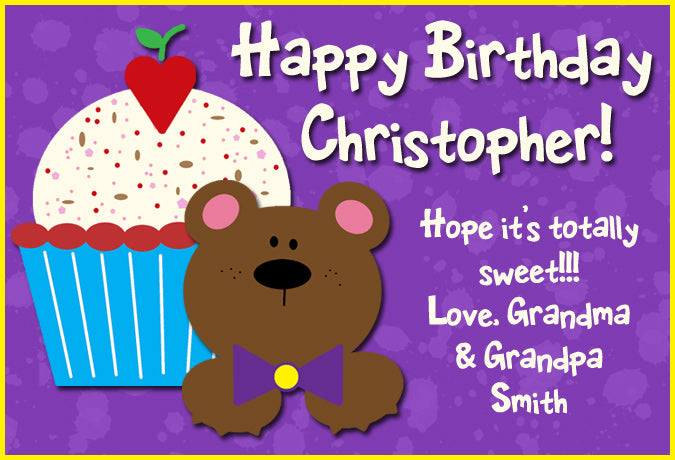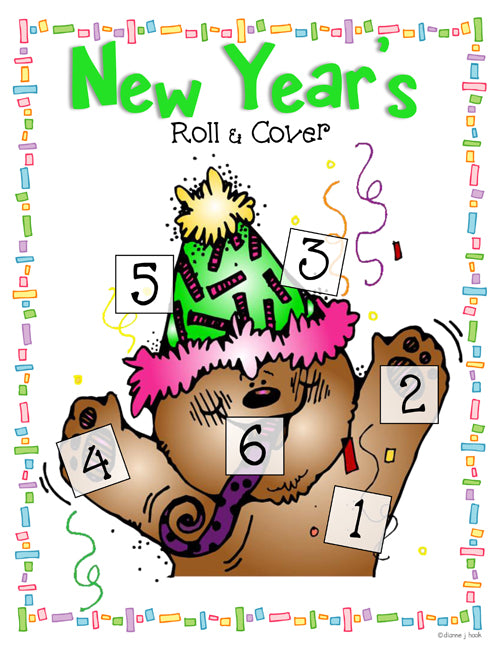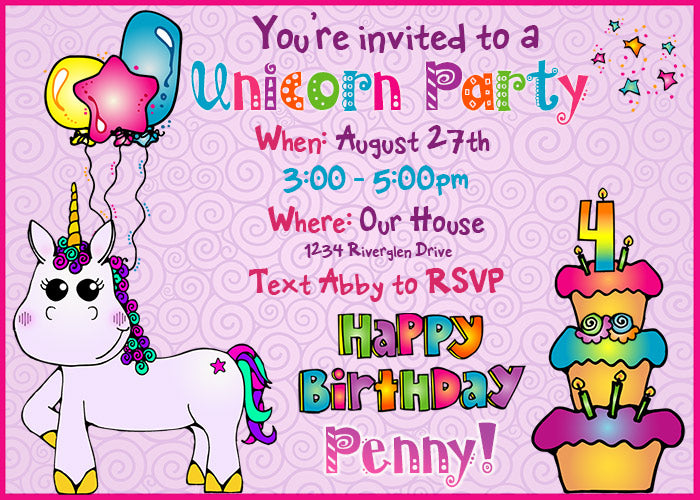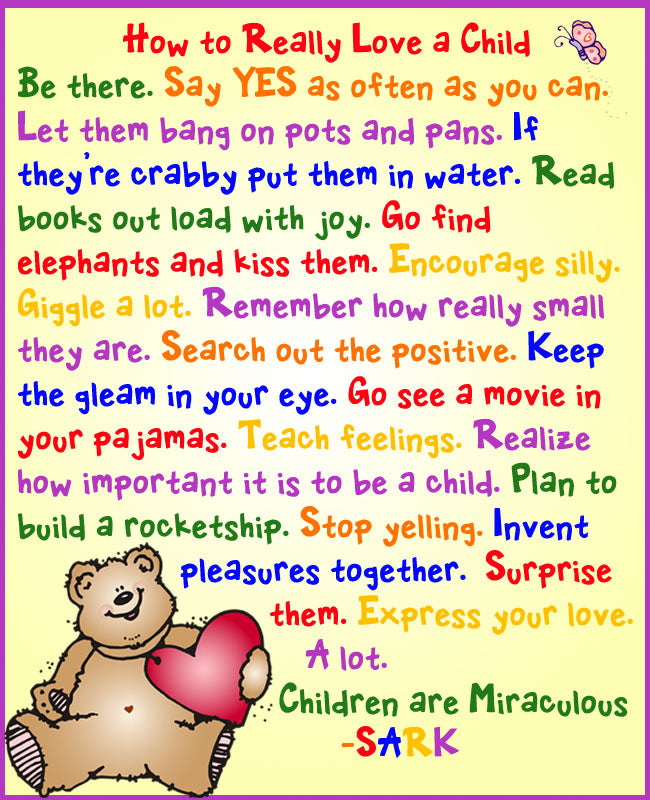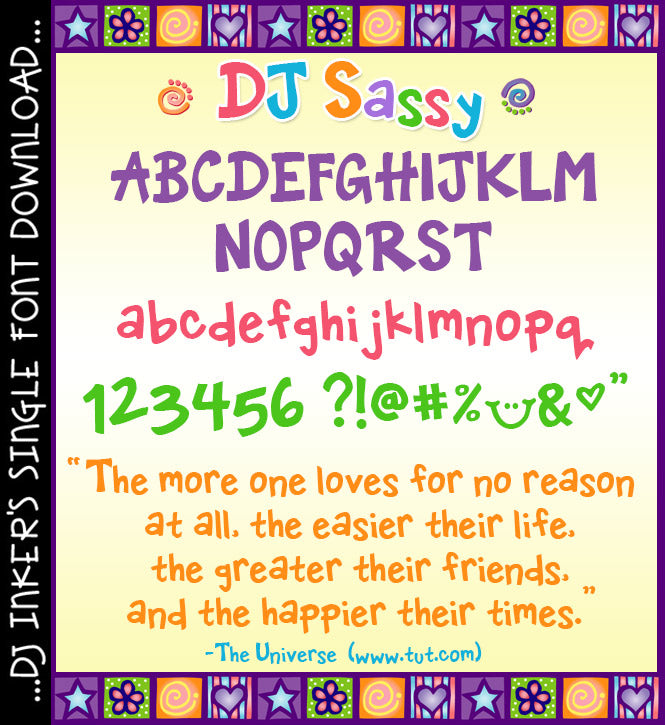
DJ Sassy Font Download
Add a bold, lively smile to your projects with this Sassy font by DJ Inkers. This font is simple & strong, but full of personality... great for headlining your projects OR giving your text an energetic little pop! This font does nicely in just about any size or color.